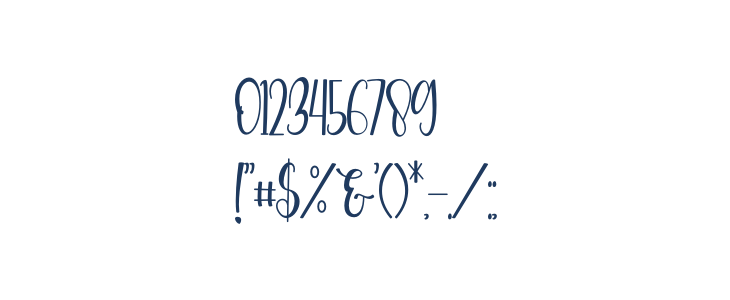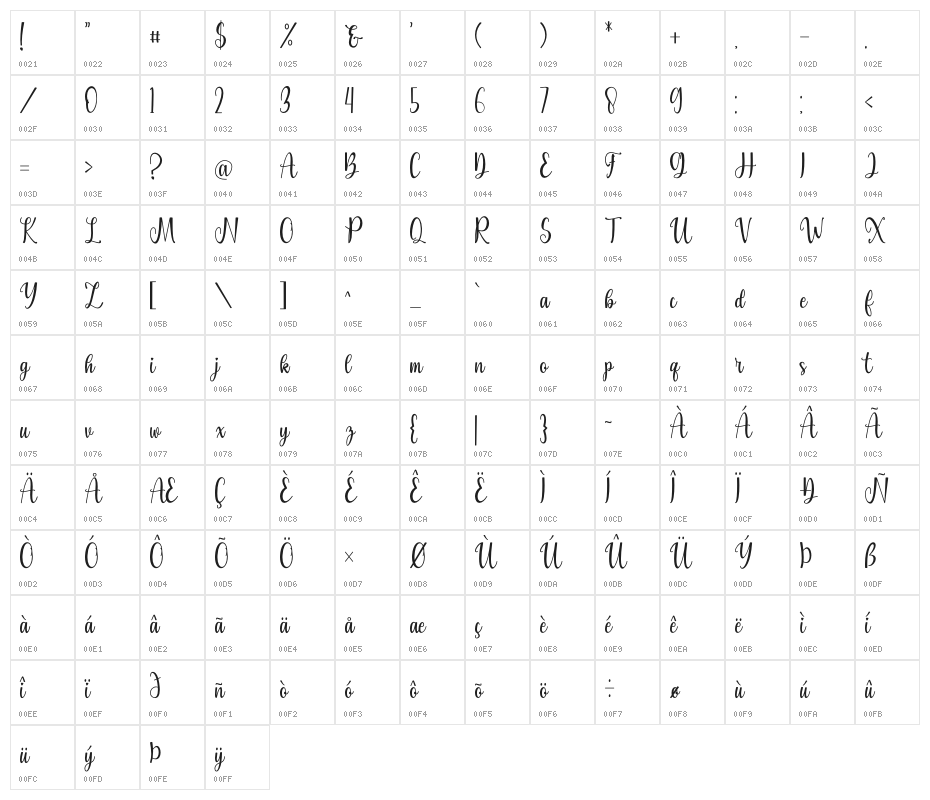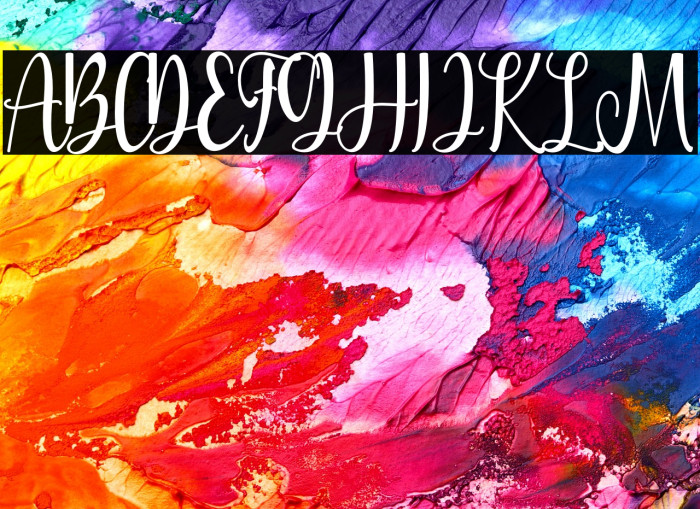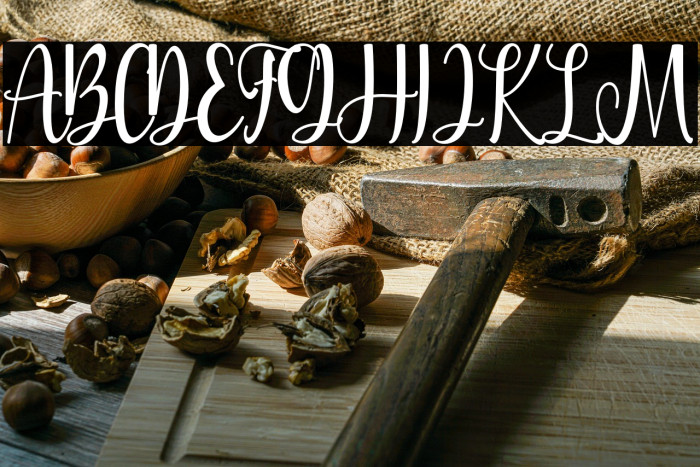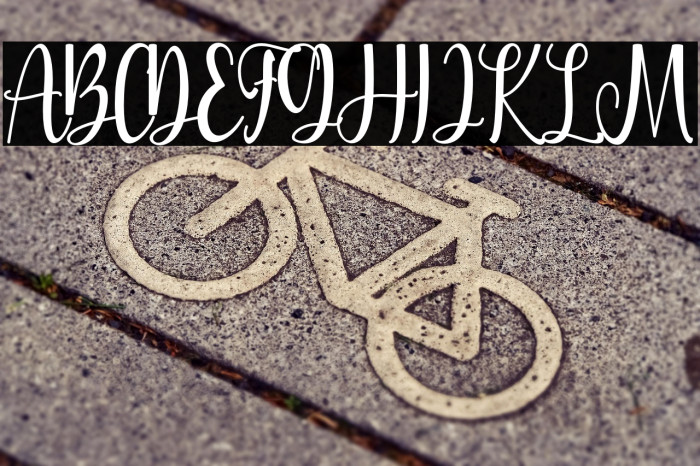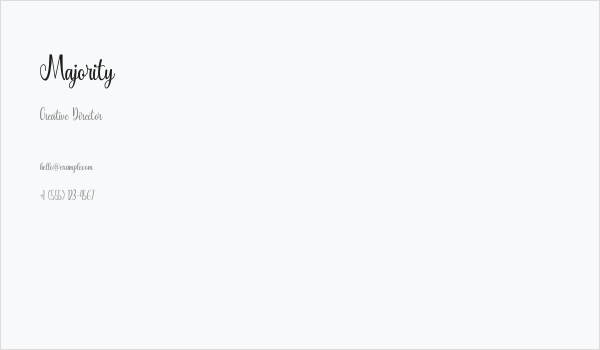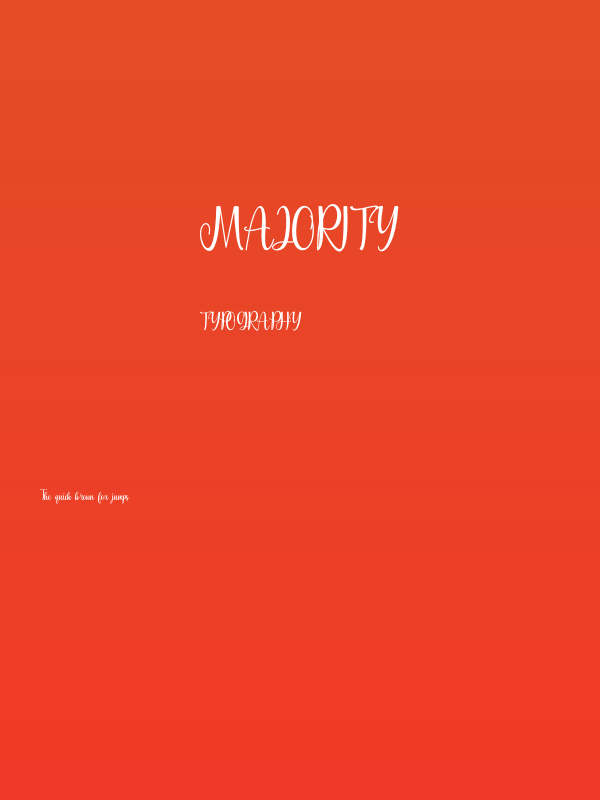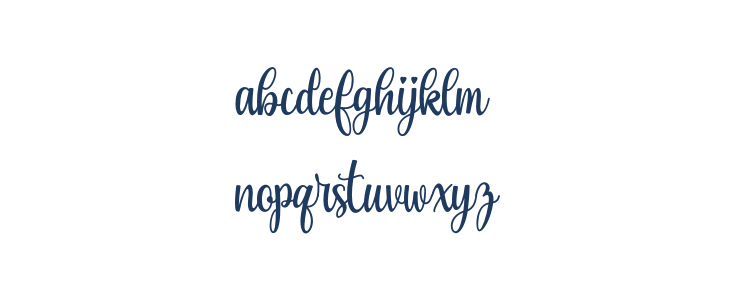
Majority Font
Majority Description
This font features an elegant and flowing script style, characterized by its smooth, cursive strokes and graceful curves. The uppercase letters are ornate, with intricate loops and swirls that give a sense of sophistication and flair. The lowercase letters maintain a consistent flow, complementing the uppercase with a more subtle elegance. Numbers and special characters are designed with the same attention to detail, ensuring a cohesive look across all elements. This font's overall appearance is both stylish and legible, making it suitable for a variety of creative applications.
| Overall Style | Elegant, Decorative |
| Use Case | Logos, Invitations, Decorative text |
| Proposed Projects | Ideal for wedding invitations, greeting cards, branding, and elegant logo designs. |